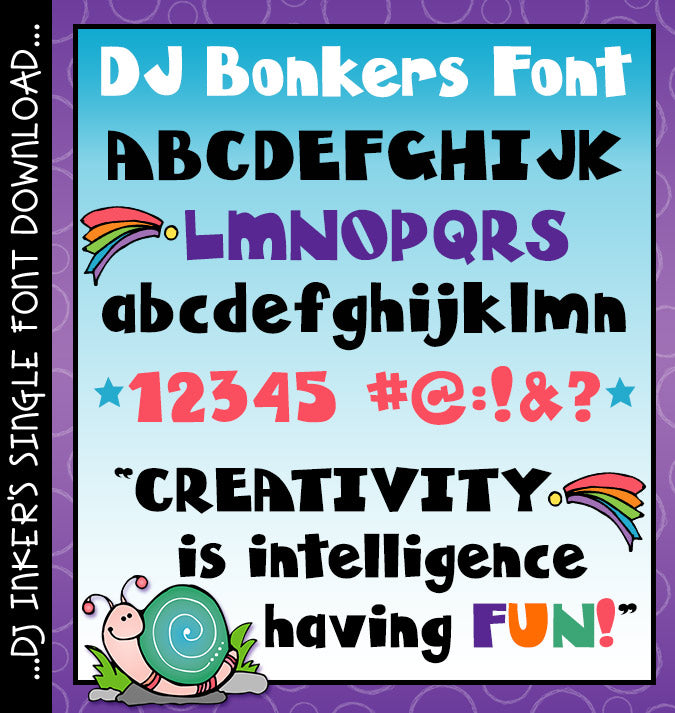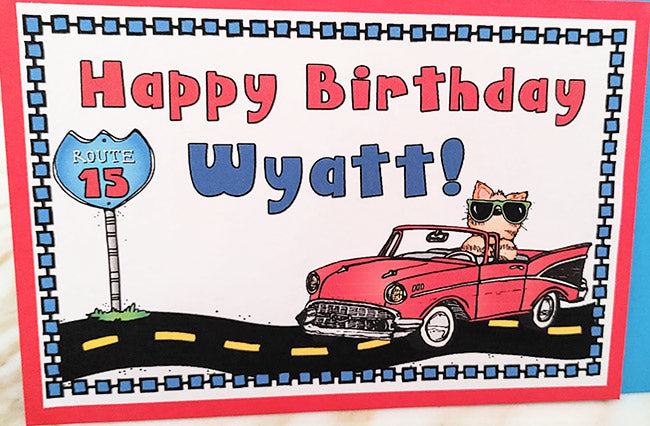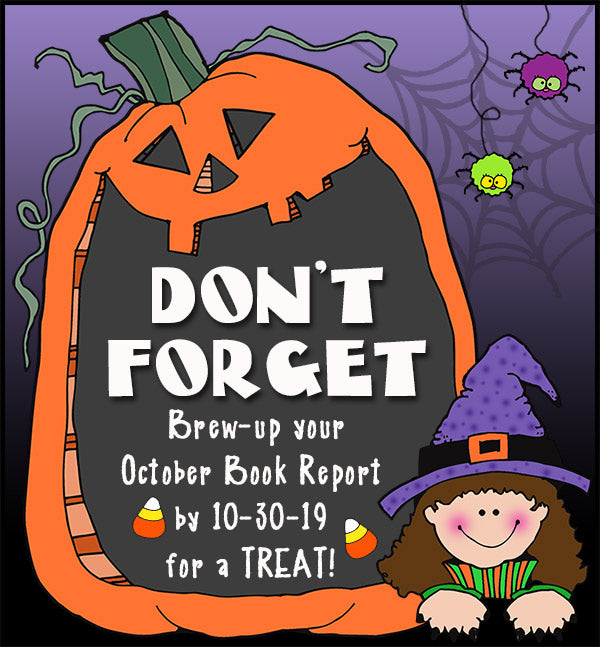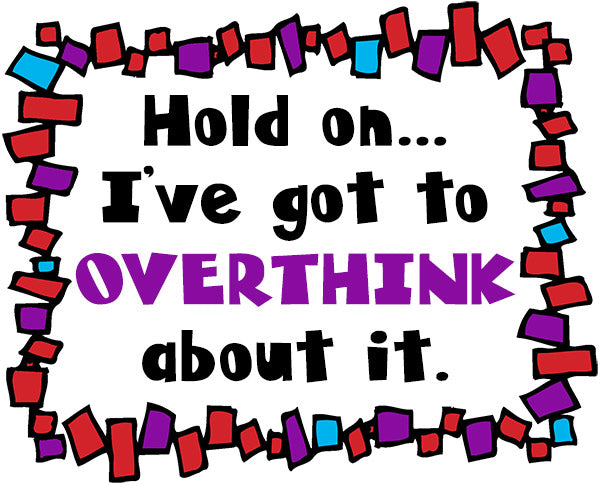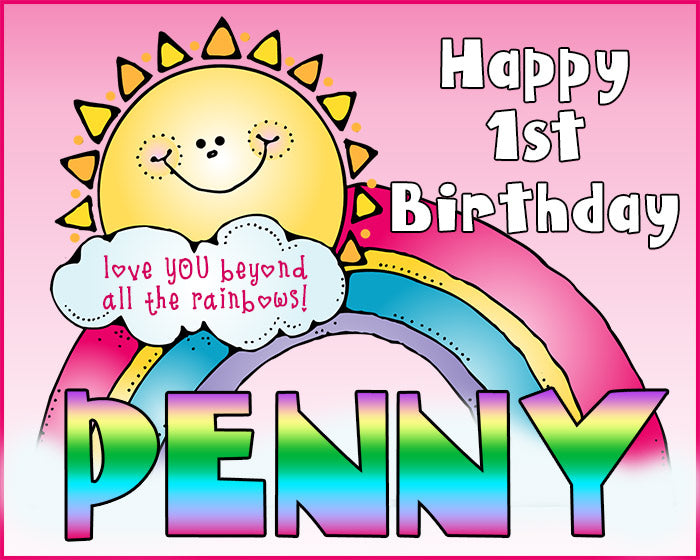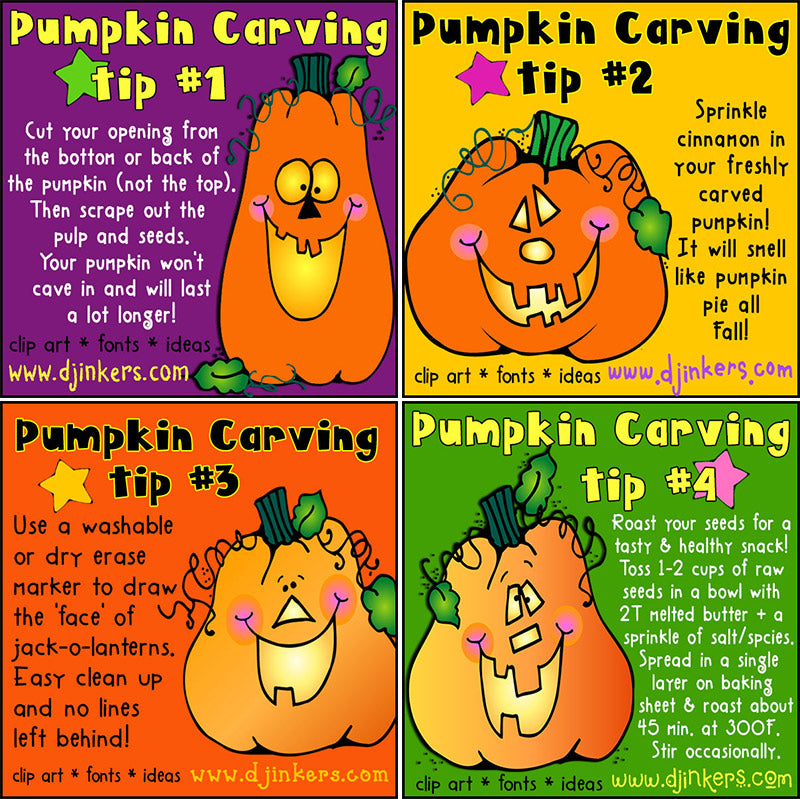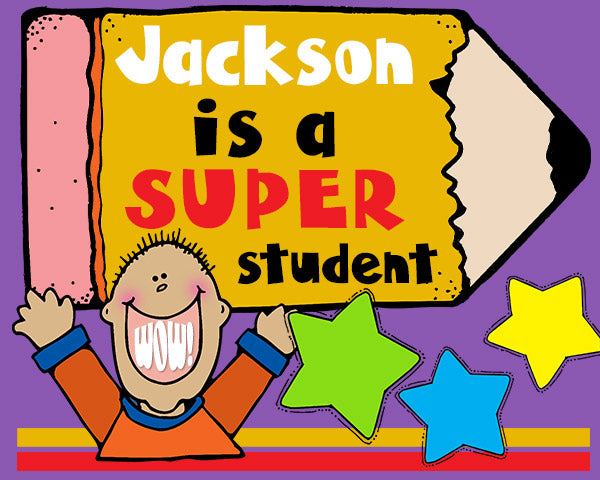
DJ Bonkers Font Download
Here at DJ Inkers, we go Bonkers for a fun font! Your text
and headlines are sure to draw attention with this bold & whimsical
lettering. Great for posters, parties, fliers and fun at home, school or
crafting.